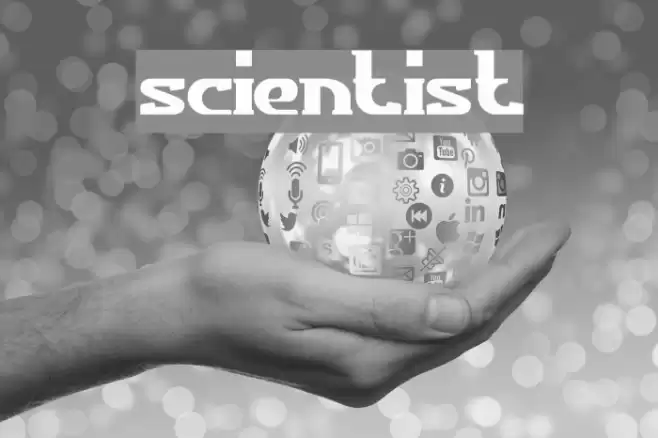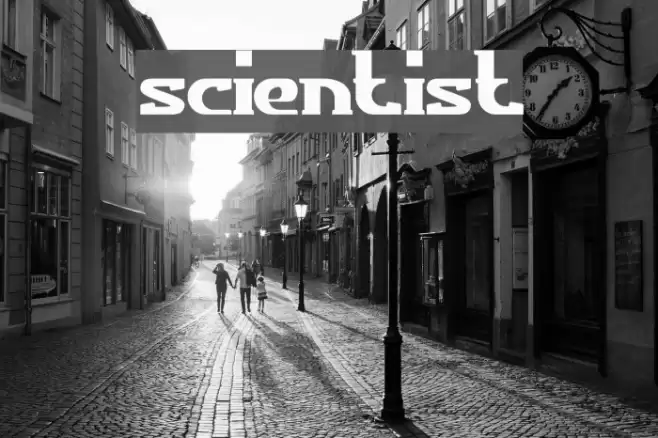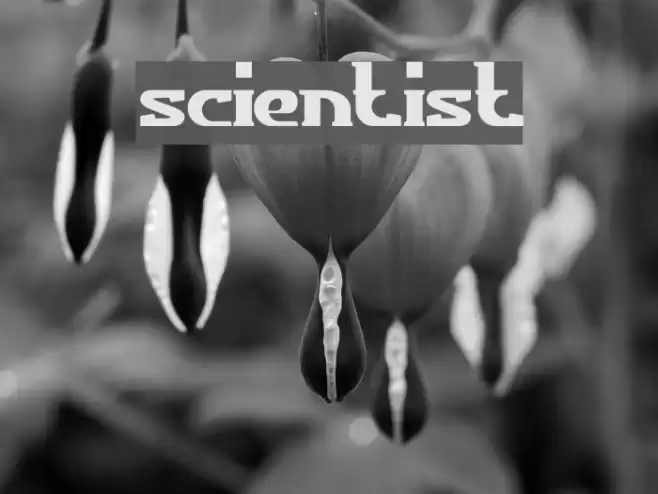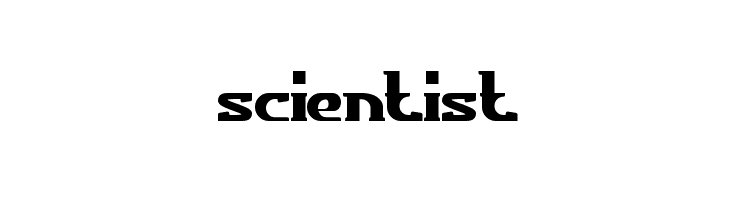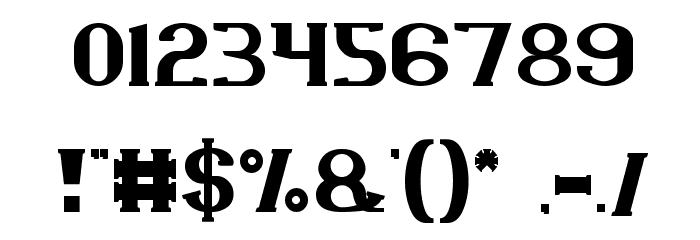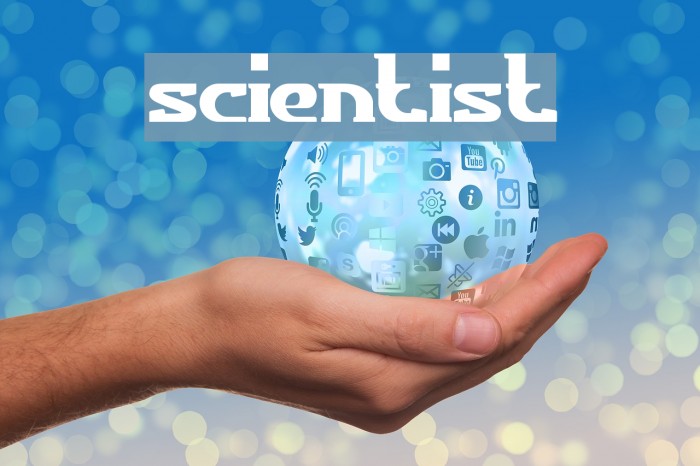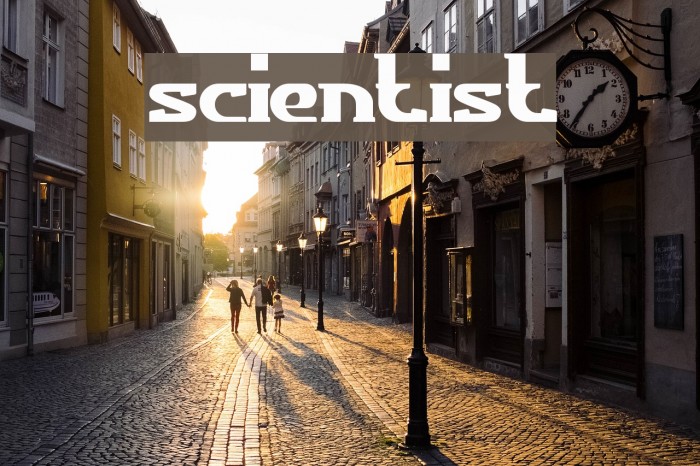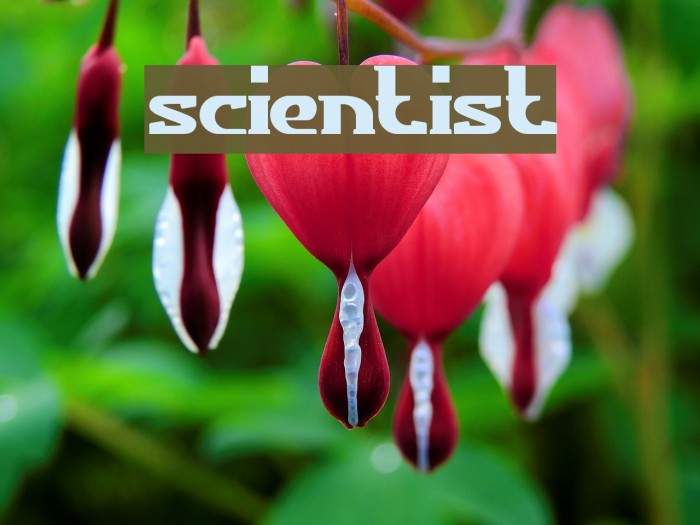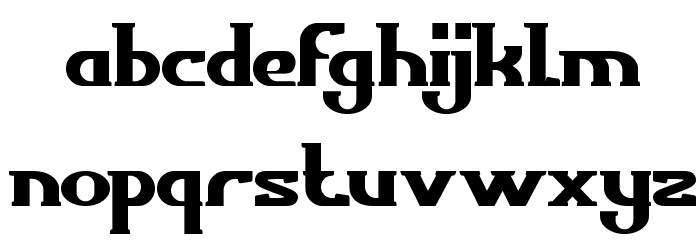
scientist Font
scientist Description
This font features a bold and striking design with a unique blend of modern and vintage elements. The uppercase letters are characterized by strong, angular serifs and a slightly condensed form, giving them a commanding presence. The lowercase letters maintain a consistent style with a slightly more rounded appearance, providing a harmonious balance. Numbers and special characters follow the same bold and distinctive style, ensuring uniformity across all characters. The overall design is both decorative and functional, making it suitable for a variety of creative applications.
A bold, vintage-inspired font with strong serifs and a modern twist from Uncategorized fonts.
- Proposed Projects: Ideal for branding, poster design, book covers, and any project requiring a bold, eye-catching typeface.
- Overall Style: Vintage